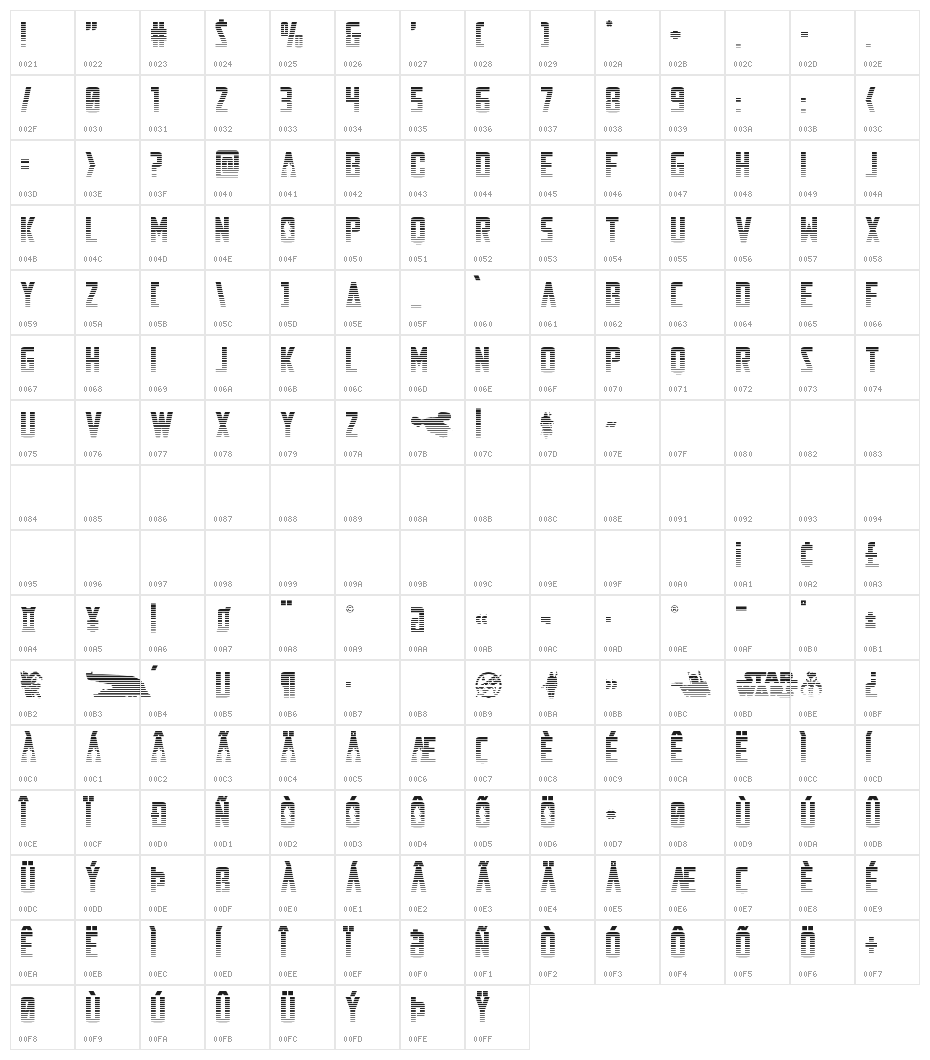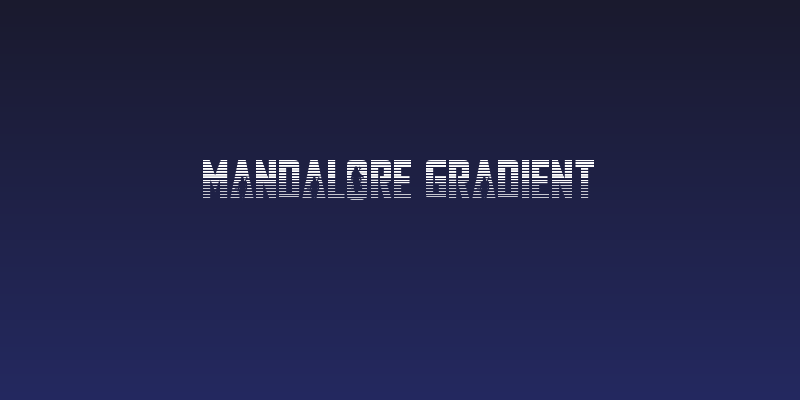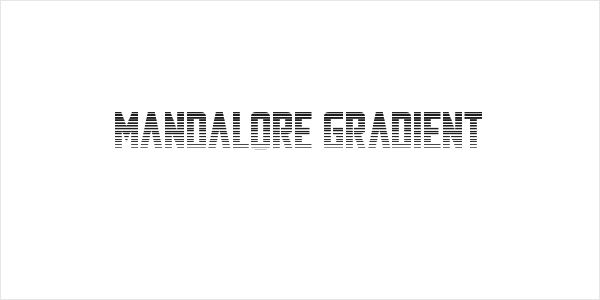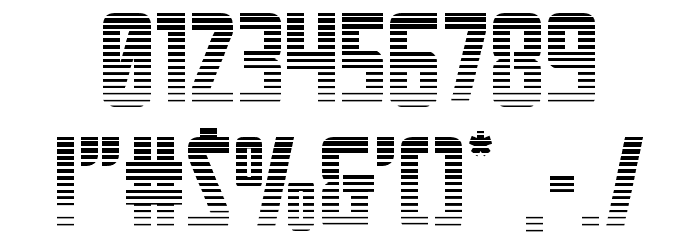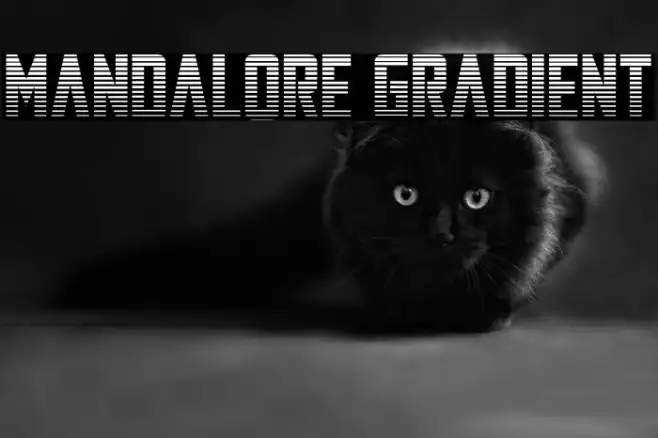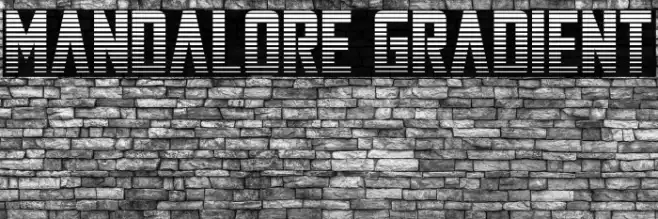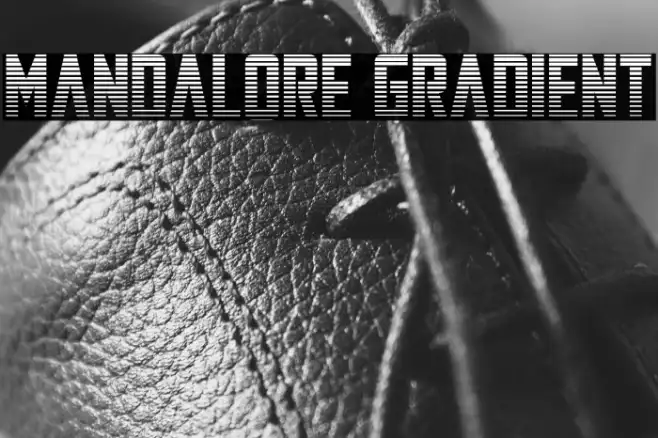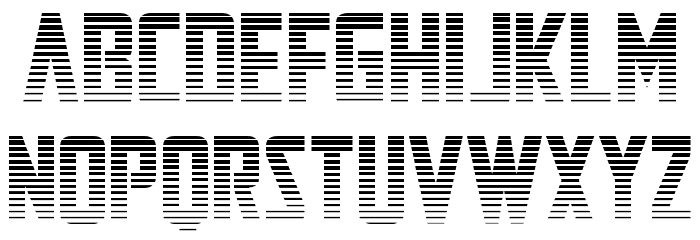
Mandalore Gradient Font
Mandalore Gradient Description
This font features a bold, futuristic design with a distinctive gradient effect created by horizontal lines that vary in thickness. The uppercase and lowercase letters maintain a consistent width, contributing to a uniform appearance. The characters are structured with sharp, angular edges, giving them a modern and tech-inspired look. The numbers and special characters follow the same stylistic approach, ensuring cohesion across all elements. The overall design is eye-catching and suitable for projects that require a strong visual impact.